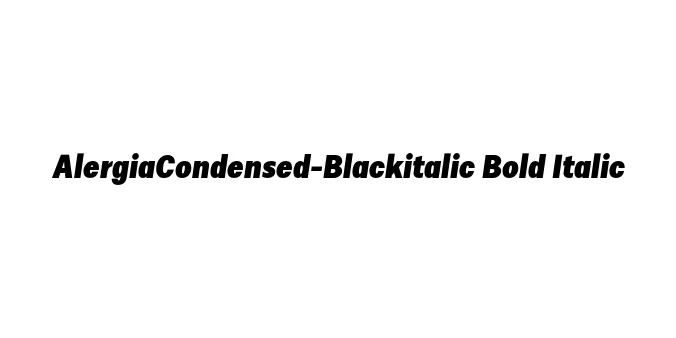
AlergiaCondensed-Blackitalic Bold Italic
Designed by Mateusz Machalski
Alergia Condensed Black Italic is a prominent member of the Alergia superfamily, meticulously crafted by the renowned Polish type designer Mateusz Machalski. This typeface represents a sophisticated blend of classic neo-grotesque structures and contemporary stylistic flourishes. The Black Italic weight is specifically designed to provide maximum visual weight and dynamic energy, making it an essential tool for designers looking to create high-impact typographic hierarchies.
The font features a narrow, condensed width coupled with a heavy stroke and a sharp italic slant, optimizing it for modern display usage where space is limited but visibility is critical. It excels in editorial design, providing a high-fashion aesthetic to magazine headlines, and in digital environments where its bold personality can lead user attention. Its clean yet aggressive character makes it a versatile choice for everything from cinematic posters to corporate branding.
AlergiaCondensed-Blackitalic Bold Italic Best Uses
Creating striking and sophisticated headlines for magazines and print media.
Developing strong, energetic logo marks and corporate identity systems.
High-visibility digital banners, social media graphics, and promotional posters.
Main hero sections and call-to-action headers that require immediate attention.